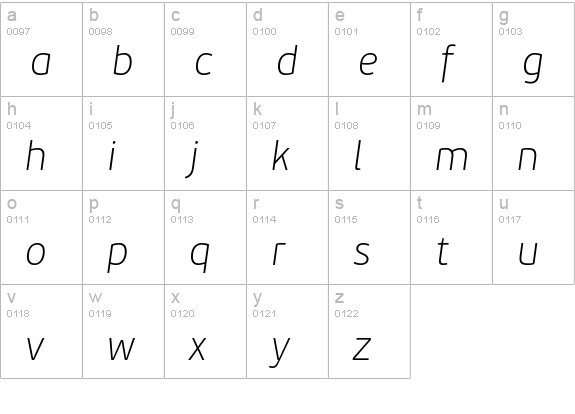
PFBeauSansPro-ThinItalic Font Details
PFBeauSansPro-ThinItalic is a sleek and elegant font that exudes sophistication and modernity. Its thin, italicized style adds a touch of elegance to any design project, making it perfect for fashion magazines, luxury brands, and upscale advertising campaigns. With its clean lines and graceful curves, this font effortlessly captures attention and conveys a sense of refinement. What sets PFBeauSansPro-ThinItalic apart is not only its aesthetic appeal but also its versatility. Whether used for headlines, body text, or branding materials, this font delivers a polished and professional look that is sure to impress. Its subtle italicized design adds a touch of flair without overpowering the overall composition, making it a versatile choice for a wide range of design projects. And the best part? PFBeauSansPro-ThinItalic is available for free download at FontsMarket.com, making it accessible to designers and creatives of all levels. So why wait? Elevate your designs with this exquisite font today and see the difference it can make in adding a touch of sophistication to your projects.